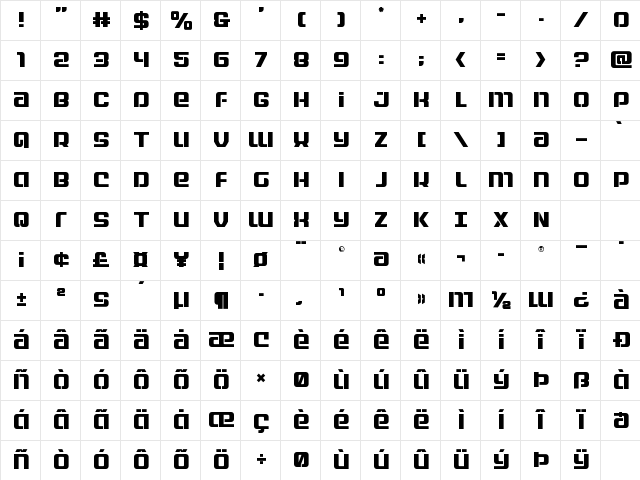
Complete Globe Trekker Title Regular glyph index. Displaying only characters natively supported by Globe Trekker Title Regular font.
Globe Trekker Title is a composed and adaptable typeface that performs quietly and consistently across a wide range of design contexts.